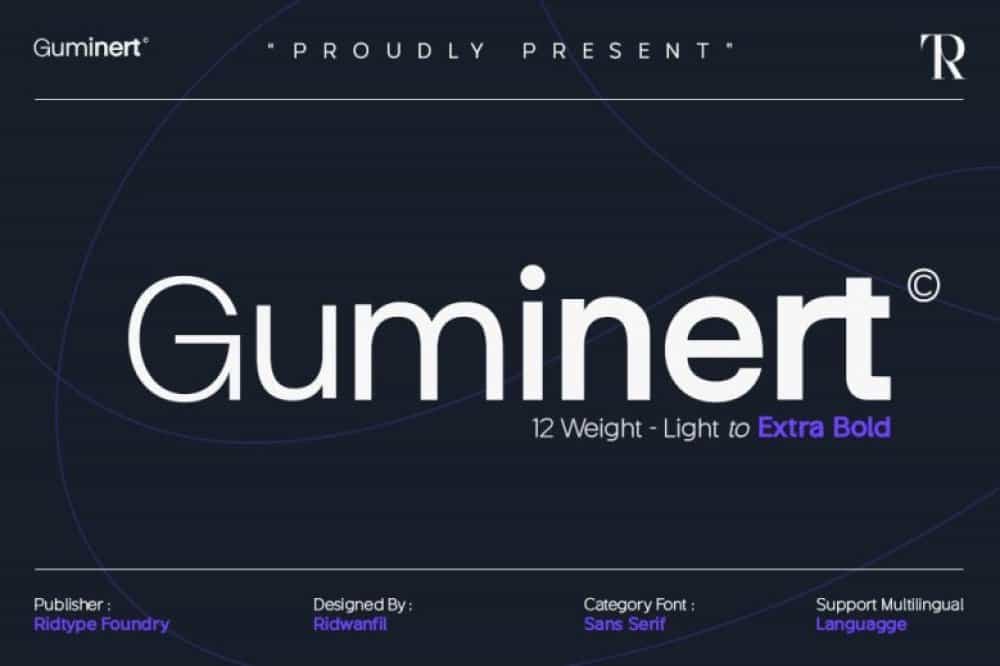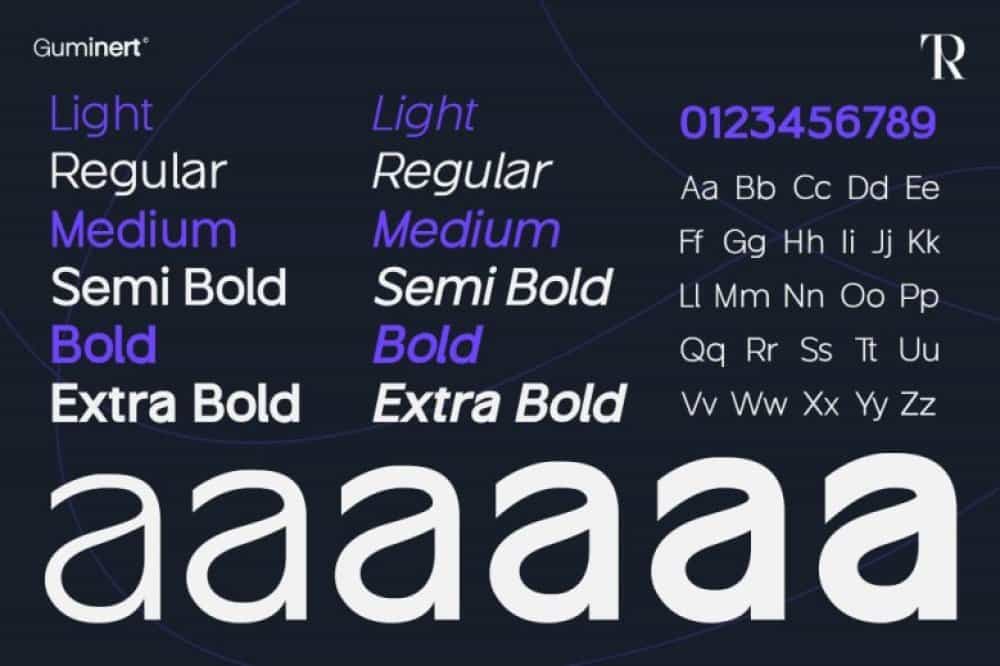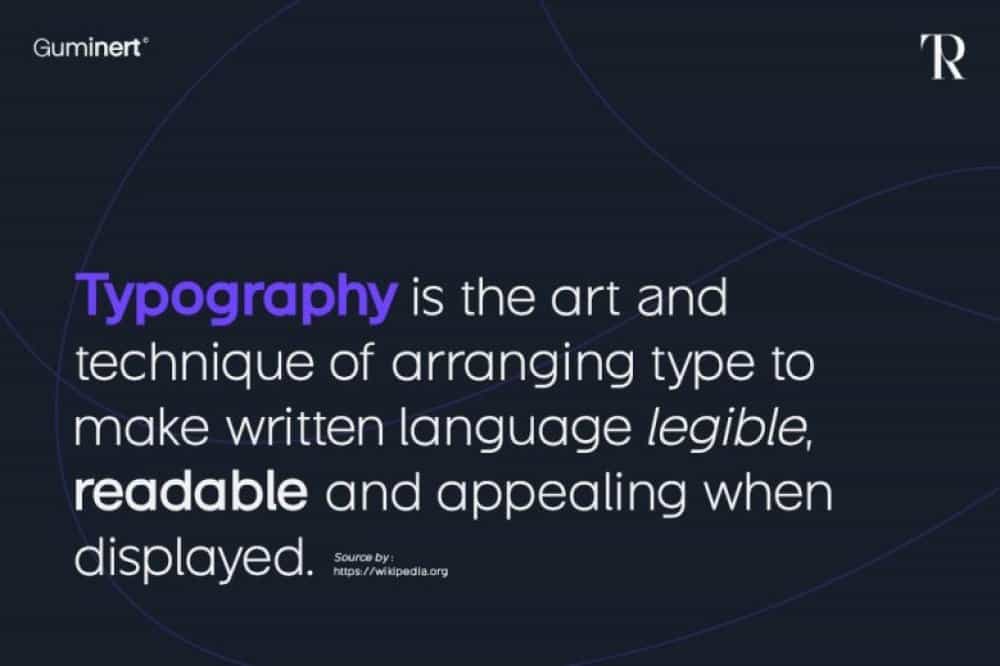
Discover Guminert Font, part of the Sans Serif collection—a versatile and unique font perfect for adding a personal touch to your projects. Download it for free and enjoy crafting designs with style, from invitations to social media posts. This font is available exclusively for personal use, giving you the freedom to create without limits. Unlock your creativity with Guminert Font today!
Guminert Sans Serif Font was designed with masculinity in mind. This font offers many customization options, from ligatures for uppercase to lowercase letters and additional character symbols that can be altered as needed to supporting characters that can be changed accordingly.